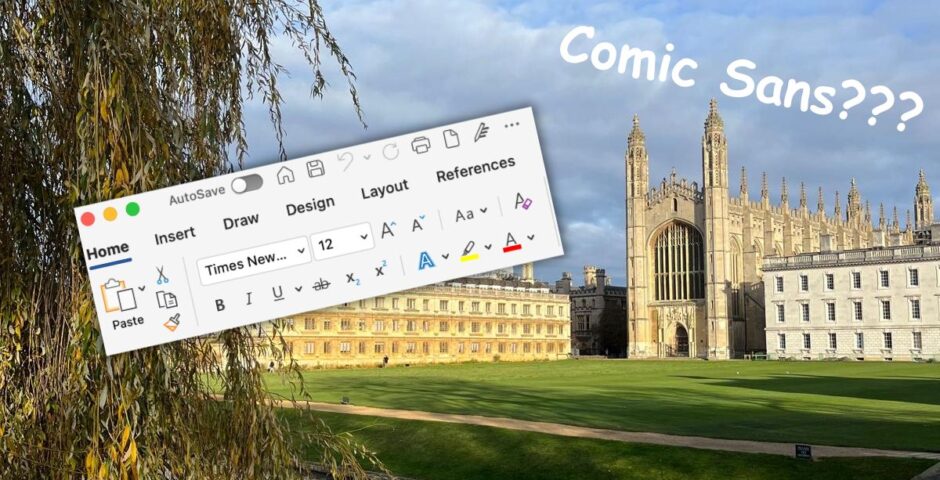
What your font choice says about you as a Cambridge student
Strap in. We’re going to the depths of your typographical soul.
It might seem like a trivial detail, but trust me, your font choice speaks volumes about you. Yes, my dear Cambridge student, the font you choose is more than just a method of delivering your thoughts onto paper. It’s a statement. A bold proclamation about who you are, what you stand for, and whether you really know how to use a formatting tool.
So, from Arial to Helvetica, here’s what your choice of font says about you.
Times New Roman: The reliable intellectual
Times New Roman—the beloved default academic font. You chose it because, at some level, you know it’s the right choice. You’ve been told a thousand times that it’s “the standard,” but honestly? You’ve got essays to write, exams to ace, and a degree to finish. You’re getting things done, and Times New Roman is the quiet, reassuring companion to your academic journey. You’re not trying to make a statement with your font choice. You don’t need to. You’re here to prove yourself on the strength of your intellect, not your ability to pick obscure fonts.
Sure, there’s a chance you might be slightly less wild at a college formal than the Helvetica crowd, but when it comes to doing your work and doing it well, you’re the gold standard. There’s no shame in being excellent, even if you’re not the flashiest font in the room.
If it was a Cambridge College: St Johns
Calibri: The modern pragmatist
Calibri is, of course, the default font for Microsoft Word, but you use it ironically, right? It’s the choice of someone who thinks, “I’m different from the masses, but not in a way that would ever offend anyone”. You like to think of yourself as the slightly rebellious type who didn’t just go with the classic Times New Roman. Oh no, you wanted something that looked fresh, sleek, and more “modern.” You’re not as flashy as Helvetica or as traditional as Times New Roman, but you don’t need to be. You’ve got a quiet confidence that speaks volumes.
If it was a Cambridge College: St Catherine’s
Arial: The Genius
Arial—a font that screams, “I’m not here to mess about.” You’re practical, no-nonsense, and very likely a bit of a workaholic. It’s as if you woke up one day, realized you were going to be a future leader in a rapidly changing world, and thought, “Well, I’m going to need a font that reflects that level of efficiency.” But let’s be honest here: If you’ve chosen Arial, you’ve probably been sucked into a minimalist, “functional” aesthetic without realising it’s the font equivalent of putting on a crisp white shirt and calling it “avant-garde.”
You might just be the person who has very strong opinions about the best printer on campus, and you’ve probably already started a petition about the quality of the Wi-Fi at Fisher Building.
If it was a Cambridge College: Trinity
Comic Sans: The rebel without a cause (or perhaps a cause too deep for the rest of us)
If you’ve chosen this font, it’s either because you’ve gone rogue in a spectacularly chaotic way or you simply didn’t realise what you were doing. Comic Sans is, in my opinion, quite frankly, an affront to academic seriousness. It’s the font equivalent of showing up to a formal dinner in flip-flops and a Hawaiian shirt. Perhaps you’re making a statement—a protest against the stifling formalities of academia. Maybe you’ve realised that the system is silly, that the obsession with font choice is a triviality in a world of greater meaning. Or perhaps, just perhaps, you’ve been awake for 48 hours straight, and this is the last form of rebellion you have left before you submit your dissertation.
If it was a Cambridge College: King’s
Helvetica: The minimalist with vision
Helvetica—sleek, modern, effortlessly cool. If Times New Roman is the dependable workhorse of fonts, Helvetica is the Ferrari of academic presentation. You’ve picked this font because, deep down, you’re a visionary. When you use Helvetica, it’s clear you’ve thought long and hard about your image. You didn’t just pick the default font or go with something safe – you made a choice.
You chose clarity, precision, and a touch of elegance. You’re someone who embraces simplicity, but you don’t sacrifice substance. You probably even took the time to read the font’s history and now wear your decision like a badge of honour. At the end of the day, you’re not just writing essays – you’re creating masterpieces, one well-justified argument at a time.
If it was a Cambridge College: Clare
Aptos: I’m different, but like, in a subtle way
When you choose Aptos, you’re not just writing an essay; you’re making an artistic statement. You’ve transcended basic legibility and entered the realm of true intellectual chic. You’re not ready to throw in Comic Sans and let the world know that your mental state is questionable, but you also can’t be seen in Times New Roman – that’s far too basic for your brand of intellectualism. I mean, sure, no one actually recognises the font, but that’s just the point, right?
You’re too cool for mainstream typefaces, a true font connoisseur in a world dominated by Calibri users. When you walk into a supervision, you don’t need to say anything; your Aptos-formatted essay does the talking. It says, “I’m not just here to pass. I’m here to rewrite the very fabric of academic tradition… one obscure font choice at a time.”
If it was a Cambridge College: Gonville and Caius
Conclusions
Ultimately, your font choice might seem like an insignificant detail in the grand scheme of your Cambridge education, but trust me, it tells us everything we need to know. Whether you’re a Times New Roman devotee, a Comic Sans anarchist, or a Garamond aficionado, your font of choice reveals the depths of your character (or lack thereof).